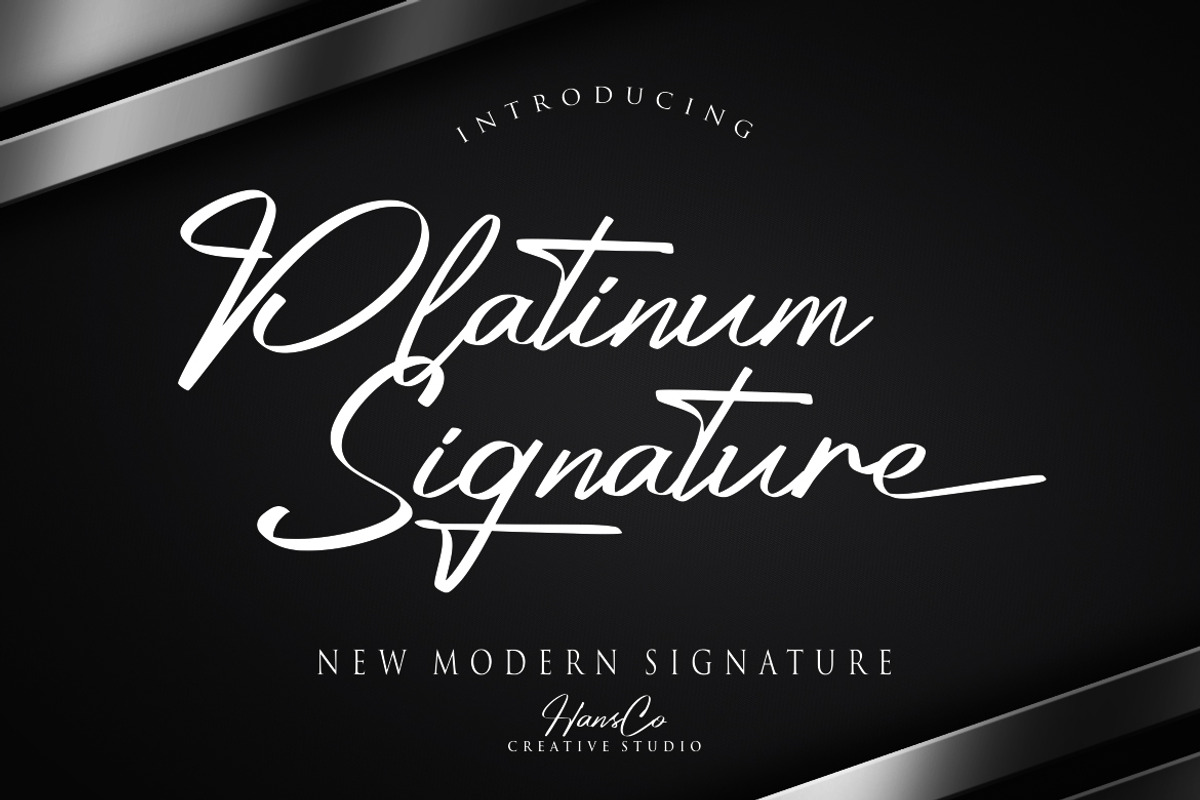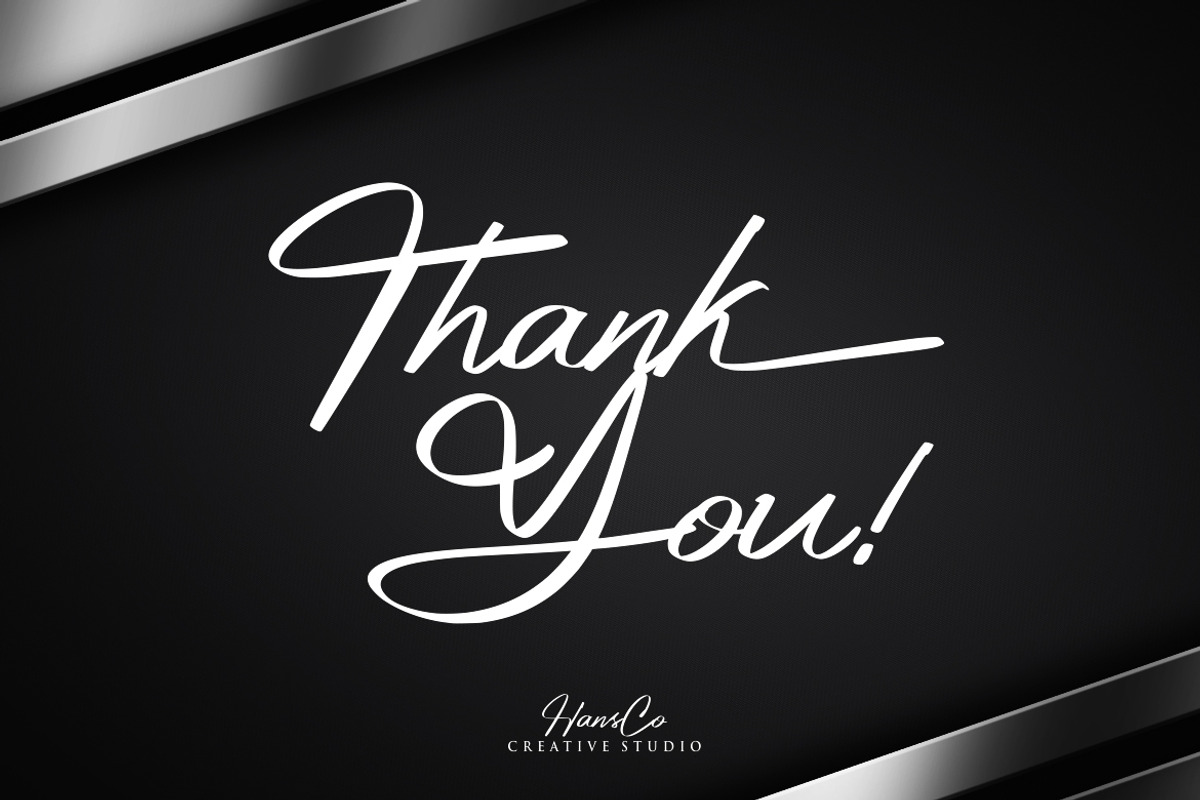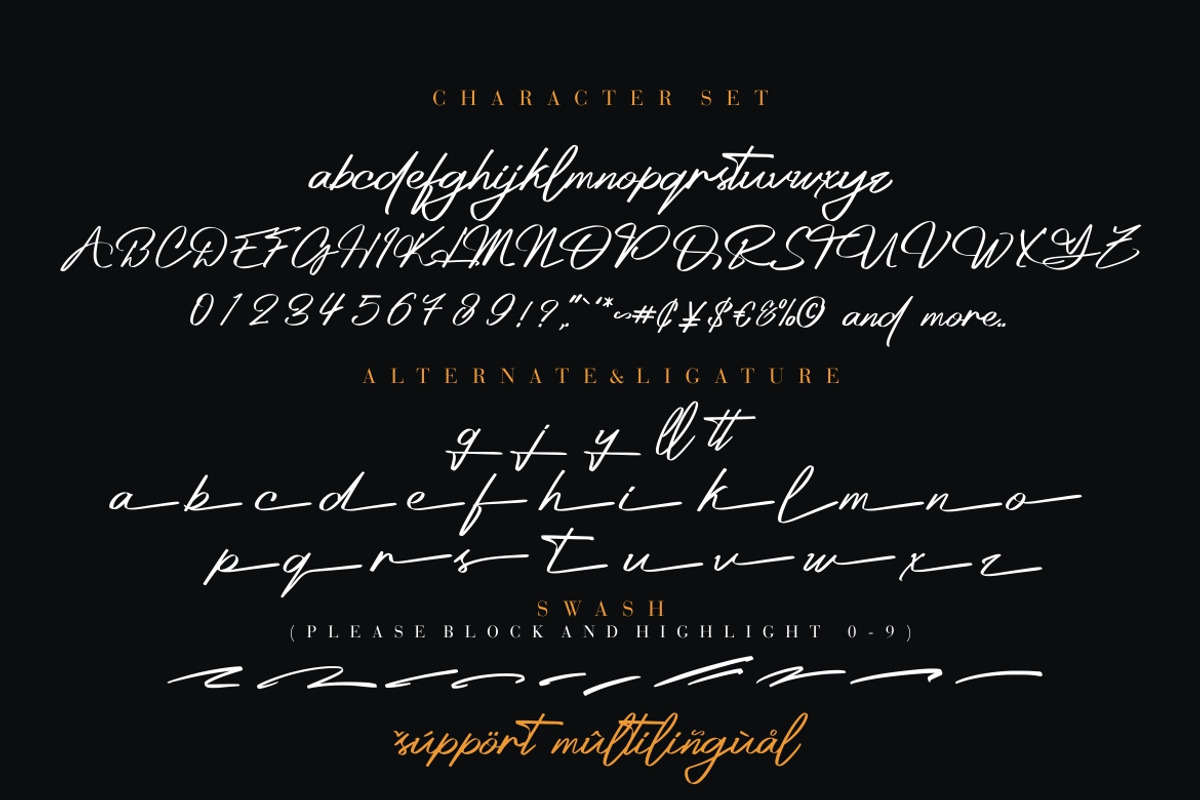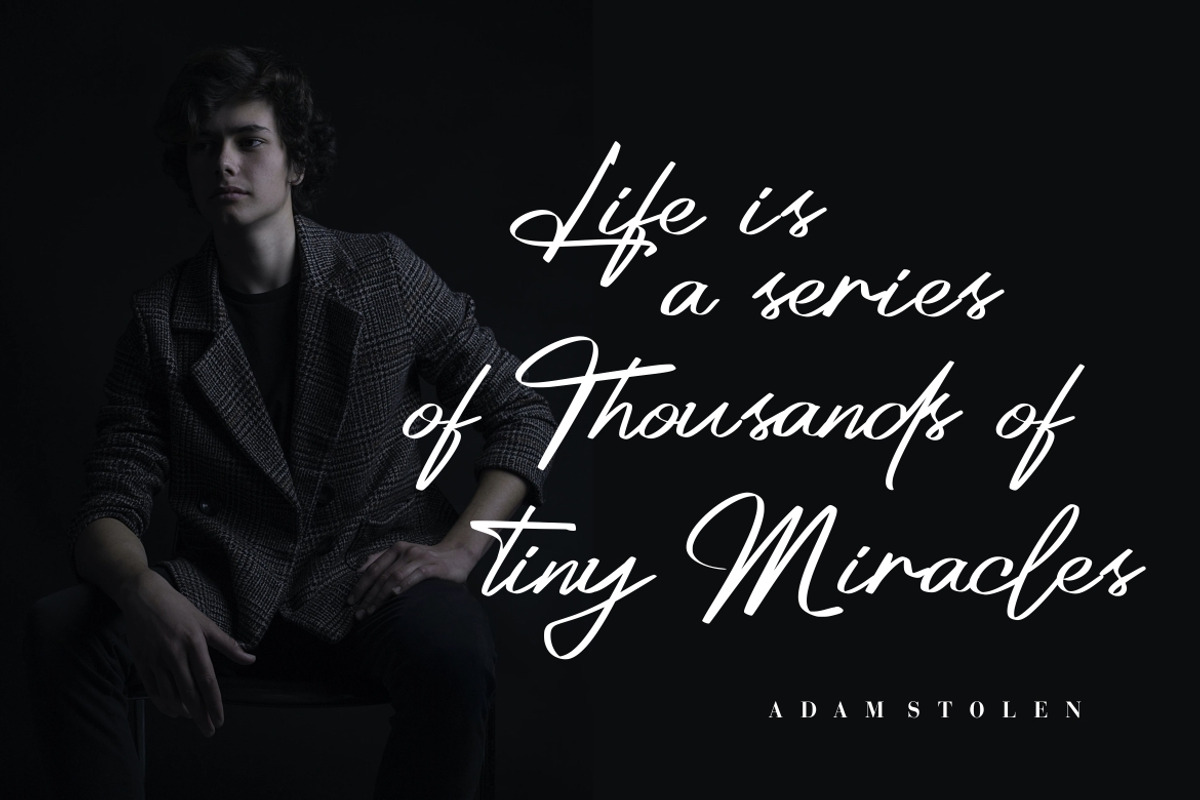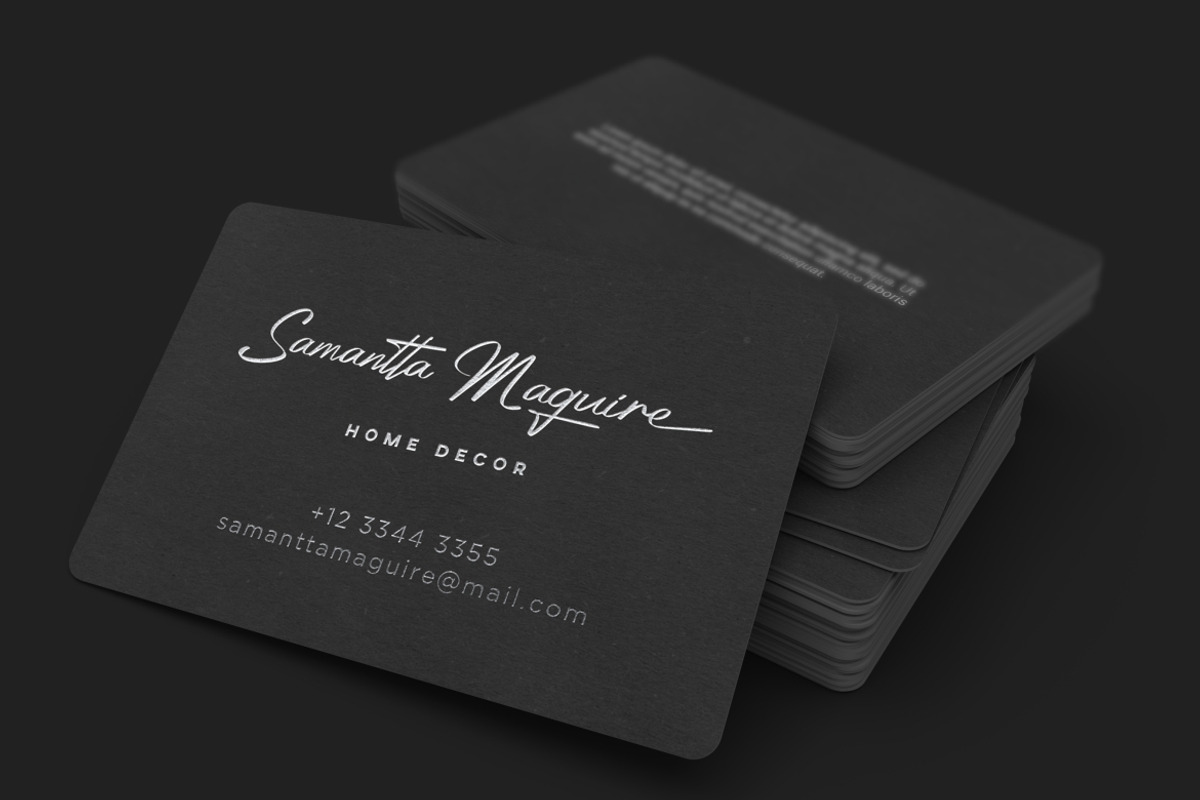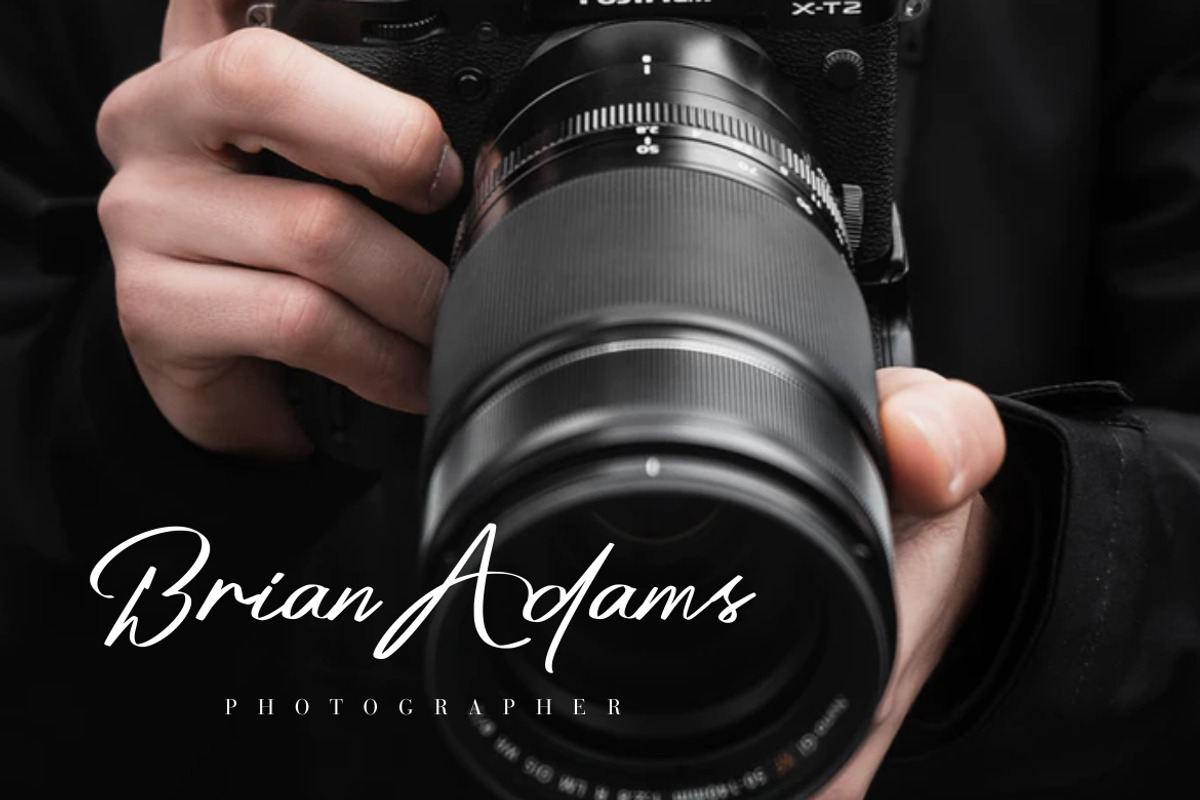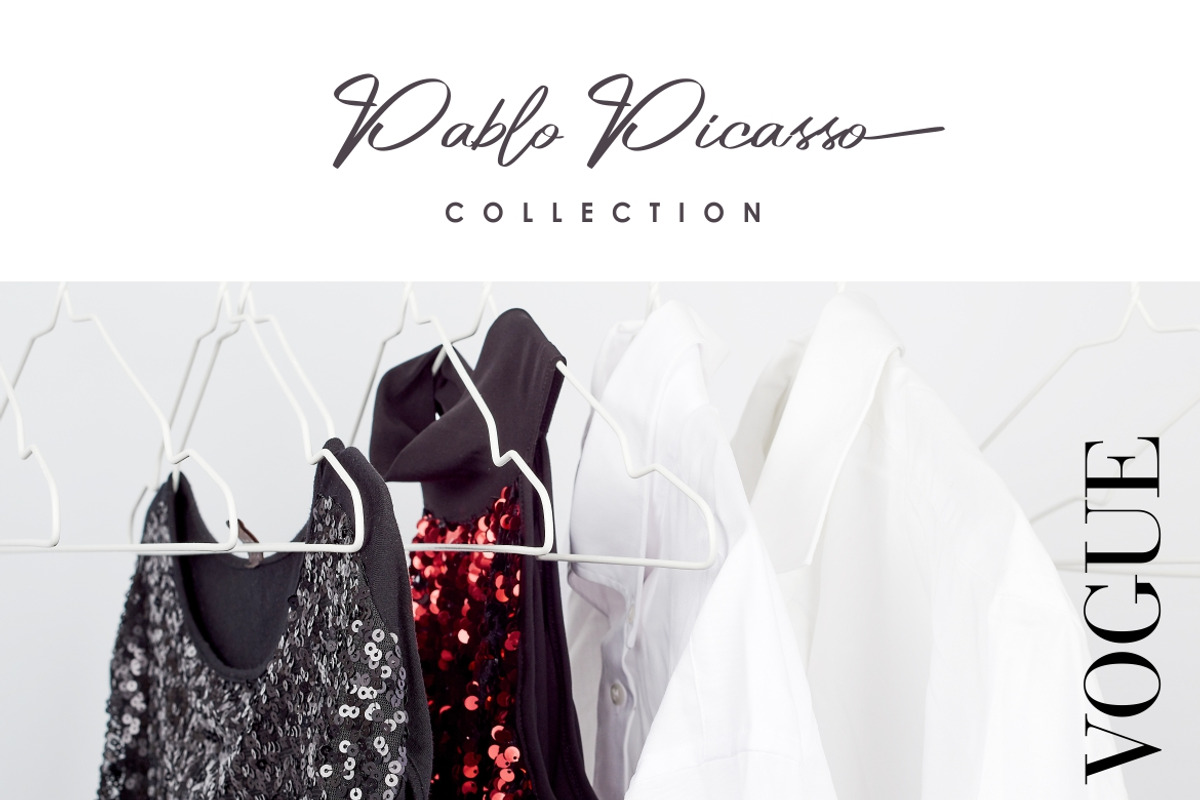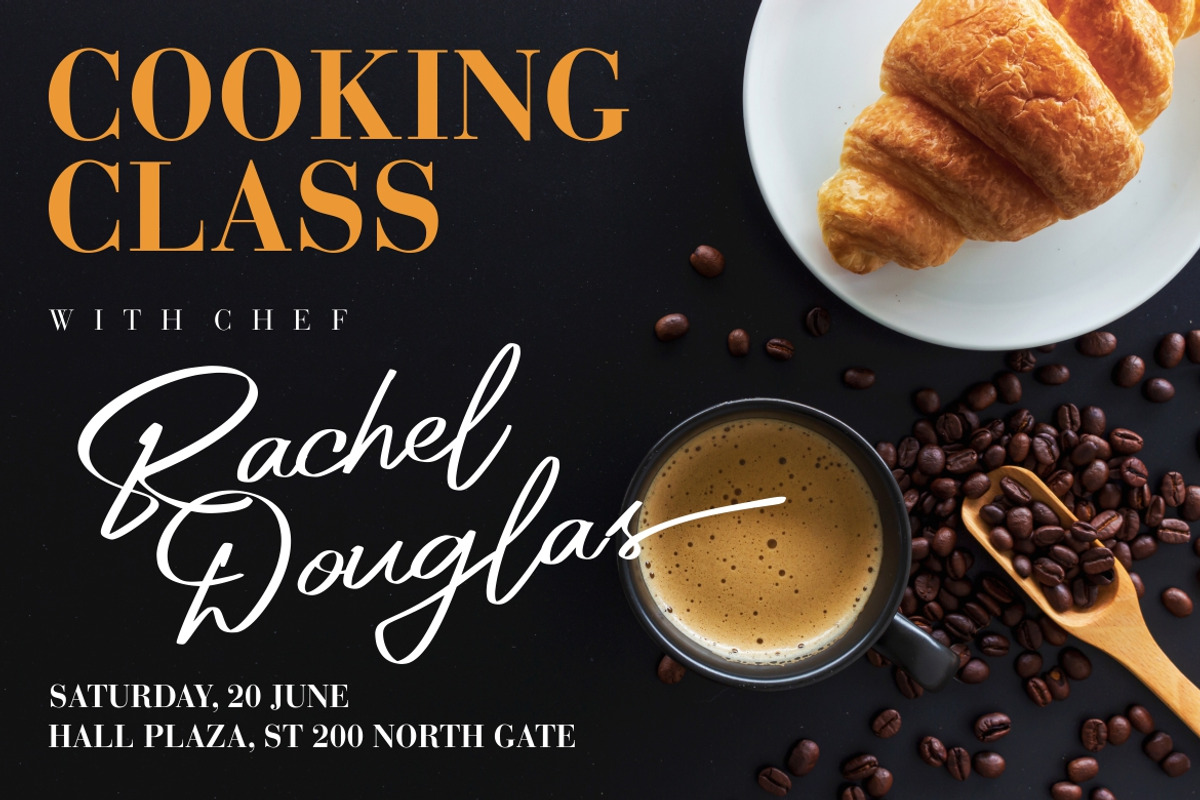
Platinum Signature Font
Platinum Signature Font is an elegant handwritten signature with a natural brush handmade. This font is perfect for creating signature logos or just watermarks for your photography studio or print template like a poster, branding, quote, or anything else . alternative and swash characters are also available. how to use it, if you use Adobe / Corel Draw you just block one of the letters / numbers (for swash) and an arrow will appear under the letter, and you can replace it with alternative characters.